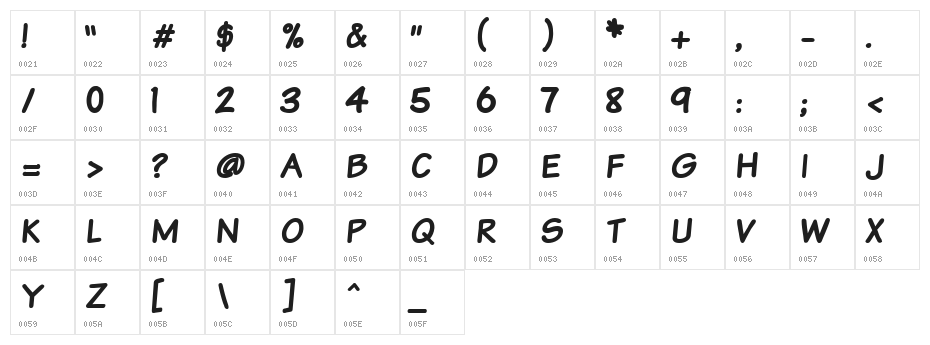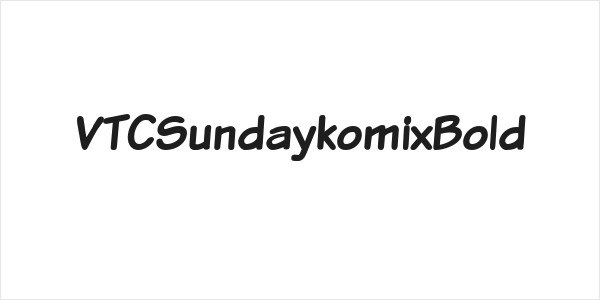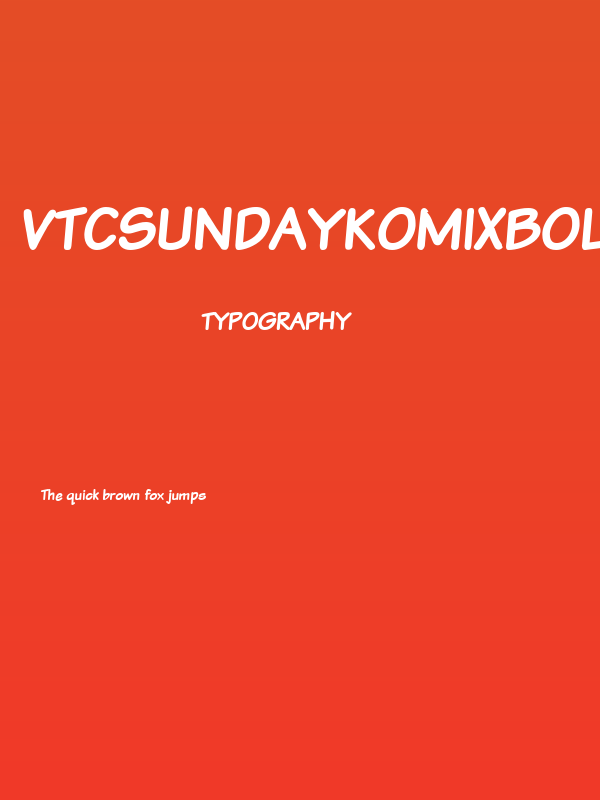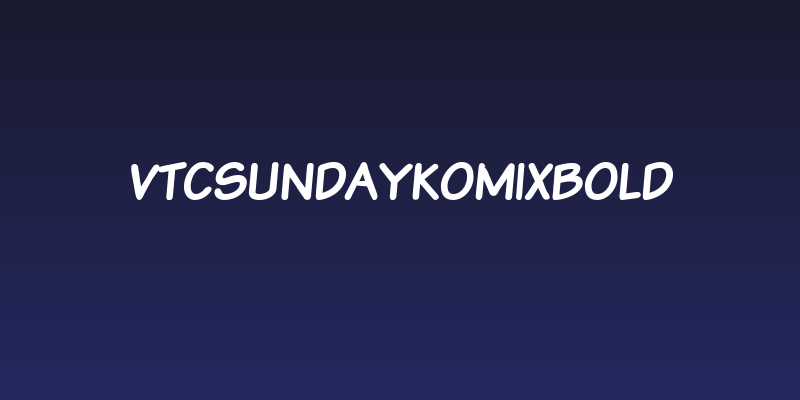
VTCSundaykomixBold Font
VTCSundaykomixBold Description
This playful and bold font features a handwritten style with rounded edges and a slightly irregular baseline, giving it a casual and friendly appearance. The characters are thick and well-defined, making them highly legible even at smaller sizes. The uppercase and lowercase letters maintain a consistent style, with a slight slant that adds to the dynamic feel of the font. The numerals and special characters are equally bold and maintain the playful aesthetic, making this font suitable for a variety of creative projects.
| Overall Style | Playful, Casual |
| Proposed Projects | Ideal for comic books, children's books, playful branding, posters, and greeting cards. |